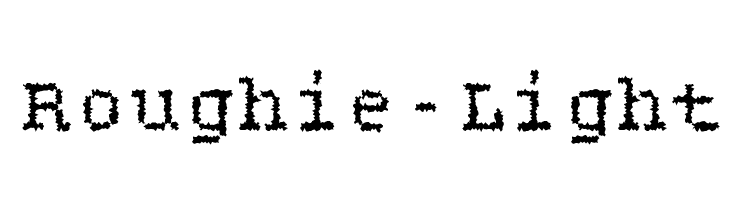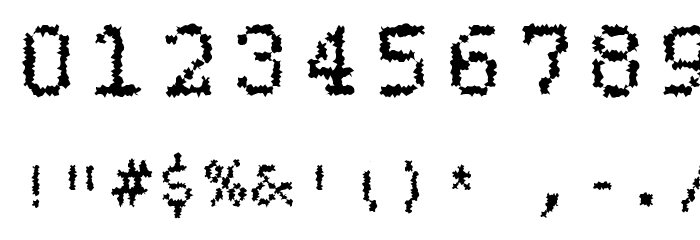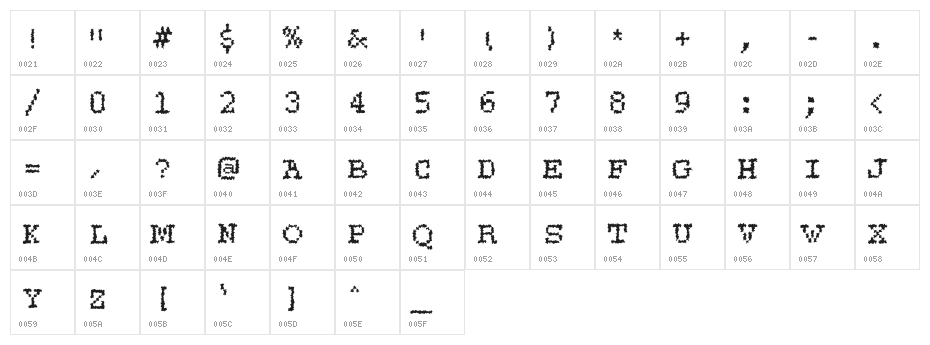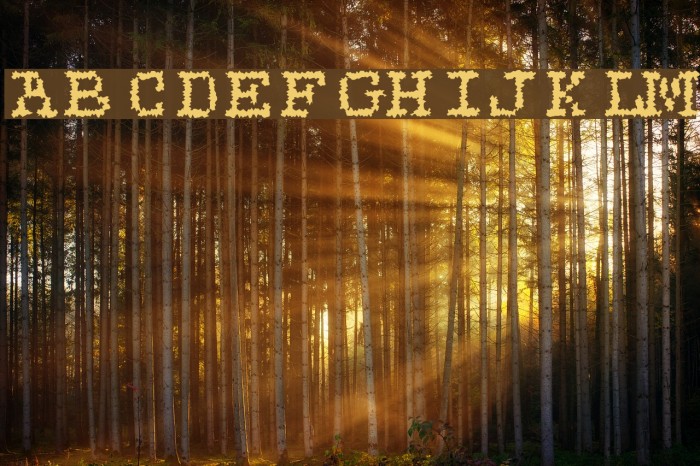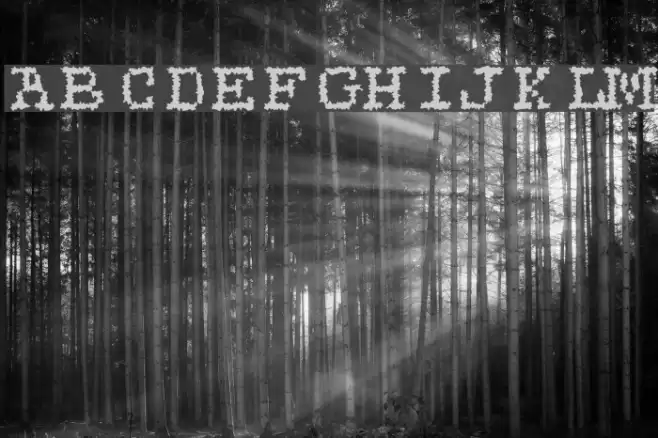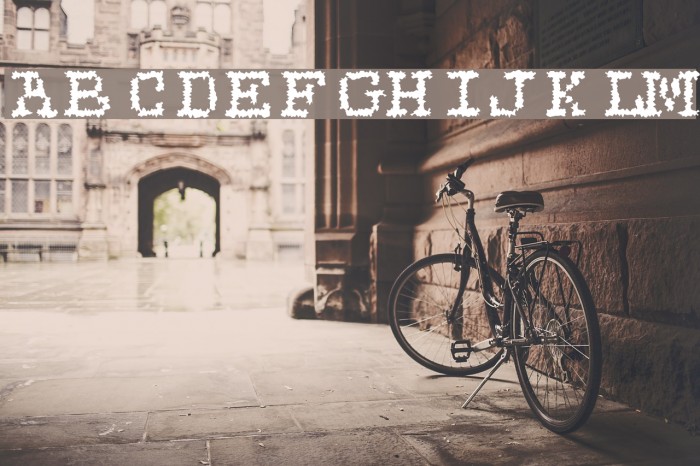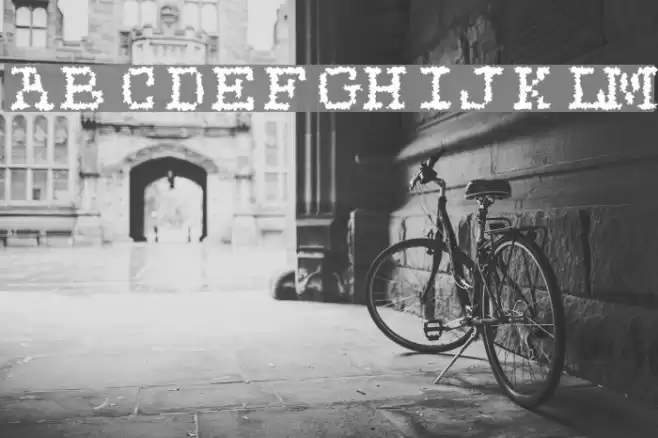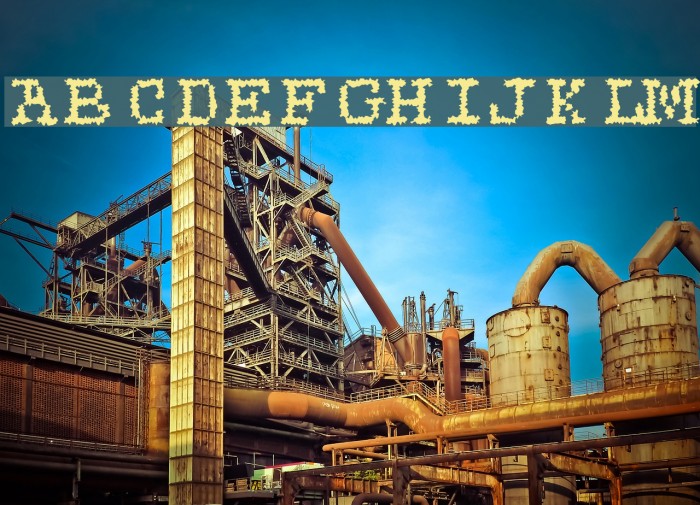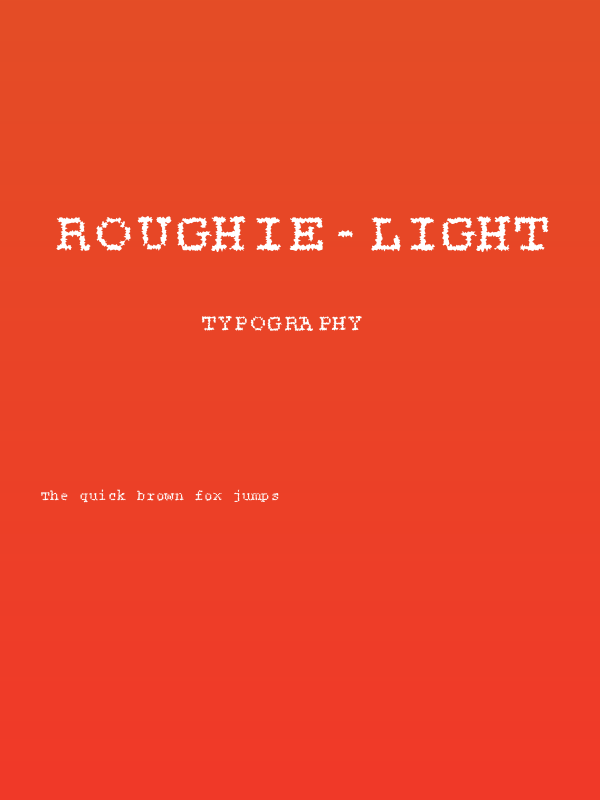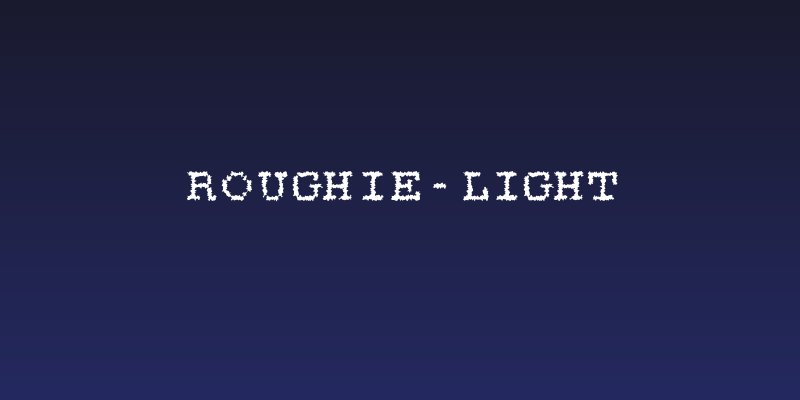
Roughie-Light Font
Roughie-Light Description
This font features a rugged, textured appearance that gives it a unique, handcrafted feel. The edges of each character are irregular and jagged, creating a distressed look that adds character and depth. Despite its rough exterior, the font maintains a clear and legible structure, making it suitable for various design purposes. The uppercase and lowercase letters are well-proportioned, and the numbers and special characters are consistent with the overall style. This font is ideal for projects that require a touch of vintage or rustic charm, such as posters, logos, or packaging designs.
| Use Case | Logos, Posters, Packaging |
| Proposed Projects | Ideal for vintage-themed posters, rustic logos, and packaging designs. |